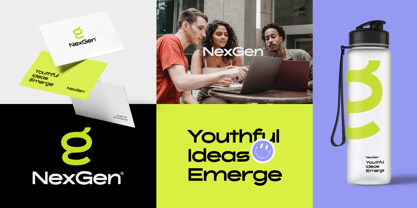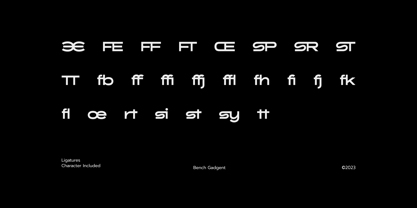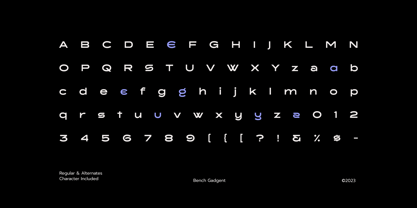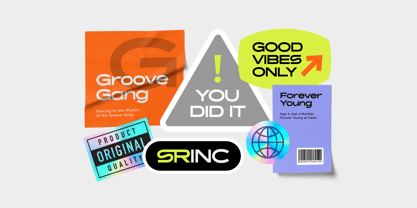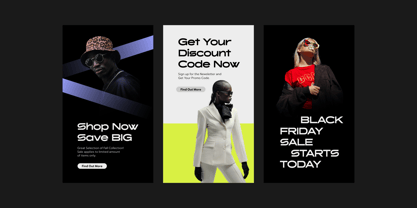
Brick Romine
par Logofonts
La famille de polices Brick Romine a été conçue par Anna Safitri et publiée par Logofonts. Brick Romine contient 1 styles.
Brick Romine is a contemporary sans serif display typeface designed for bold, impactful typography. With clean, geometric lines and a sleek, minimalistic approach, this font exudes modern elegance. Its high contrast and strong presence make it perfect for large-scale headlines, branding, and digital use where clarity and style are paramount. Each letterform is crafted with precision, balancing readability with visual flair, making Brick Romine ideal for everything from fashion and tech to editorial and advertising designs. Whether used in print or on screen, it commands attention while maintaining a sophisticated, refined aesthetic.
Concepteurs: Anna Safitri
Éditeur: Logofonts
Fonderie: Logofonts